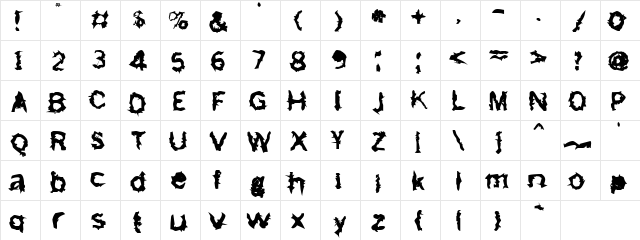
Freemason Bold
Design Context for Freemason Typeface
Freemason is a composed and adaptable typeface that performs quietly and consistently across a wide range of design contexts. Its bold stroke weight gives it real presence on the page.